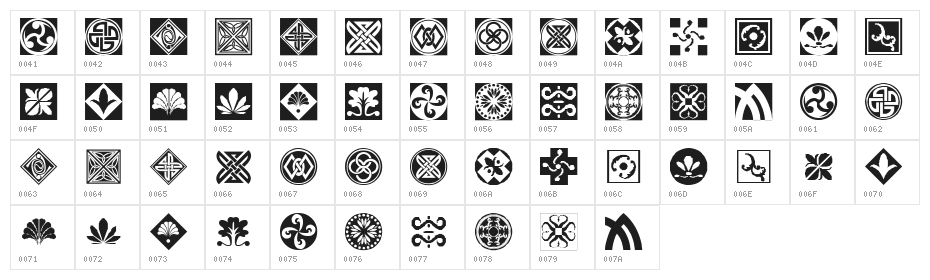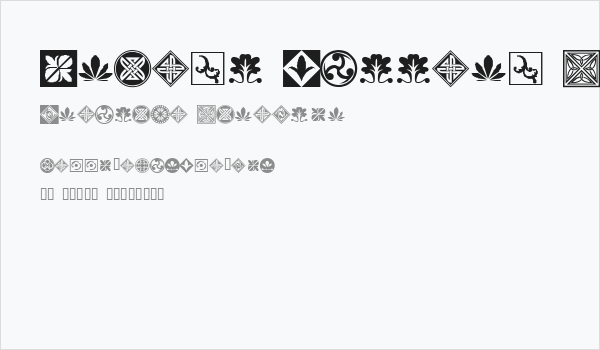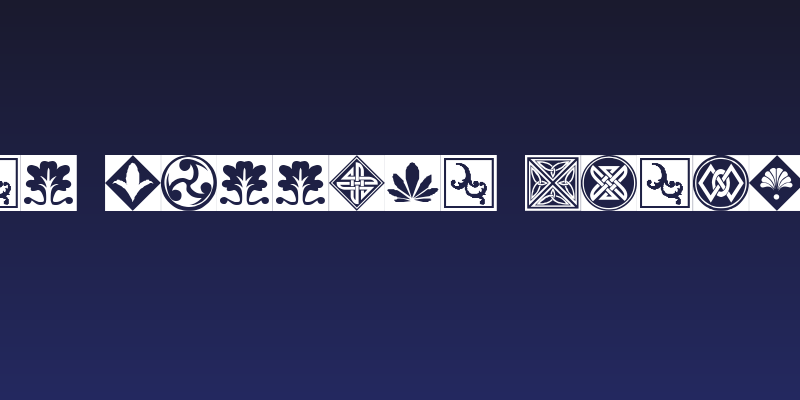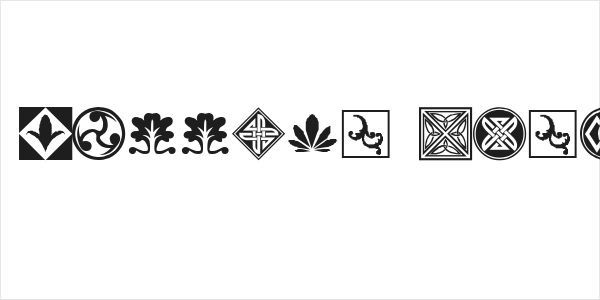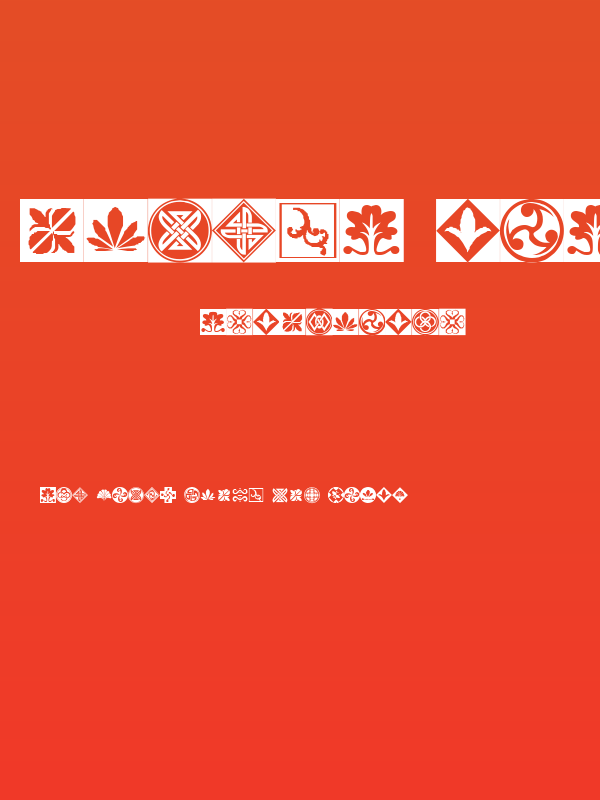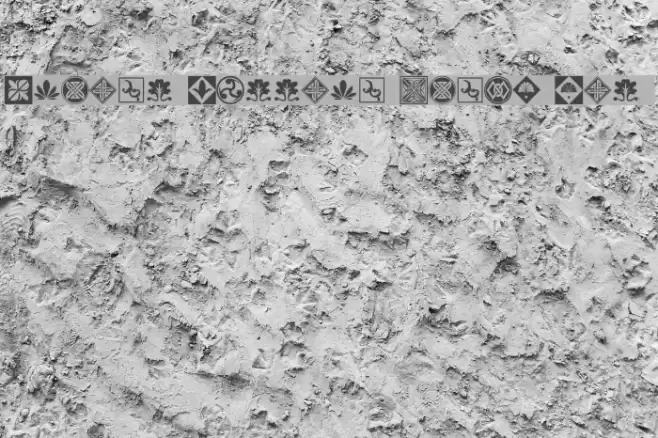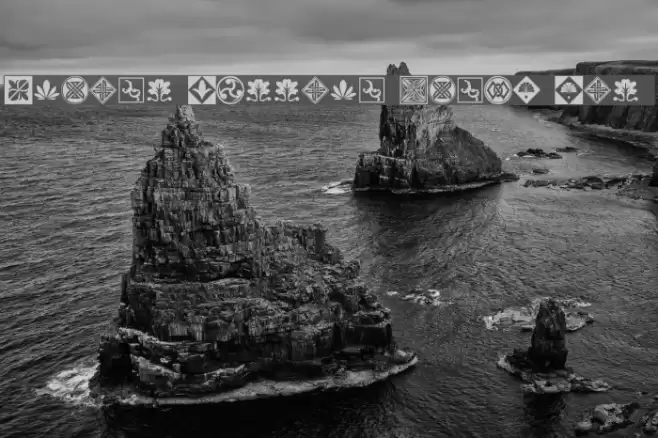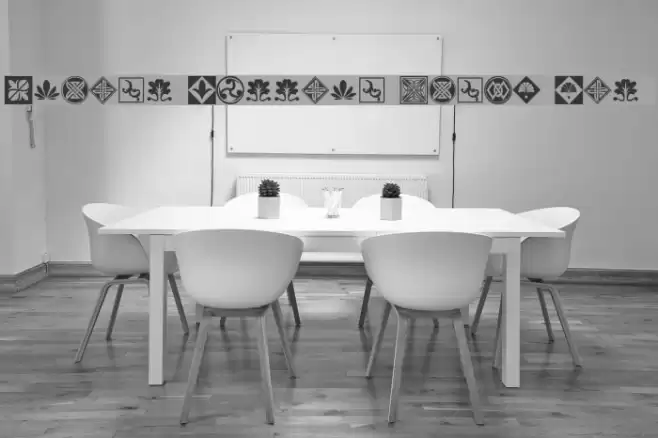
Orient Pattern Dings Set 1 Font
Orient Pattern Dings Set 1 Description
A decorative dingbat set featuring intricate geometric, floral, and ornamental patterns inspired by traditional Eastern motifs, presented in high-contrast black and white within square and circular frames.
| Overall Style | Decorative, Ornamental, Ethnic |
| Use Case | Decorative elements, Borders, Logos, Pattern fills |
| Proposed Projects | Borders, invitations, certificates, decorative dividers, packaging, branding, and pattern design. |